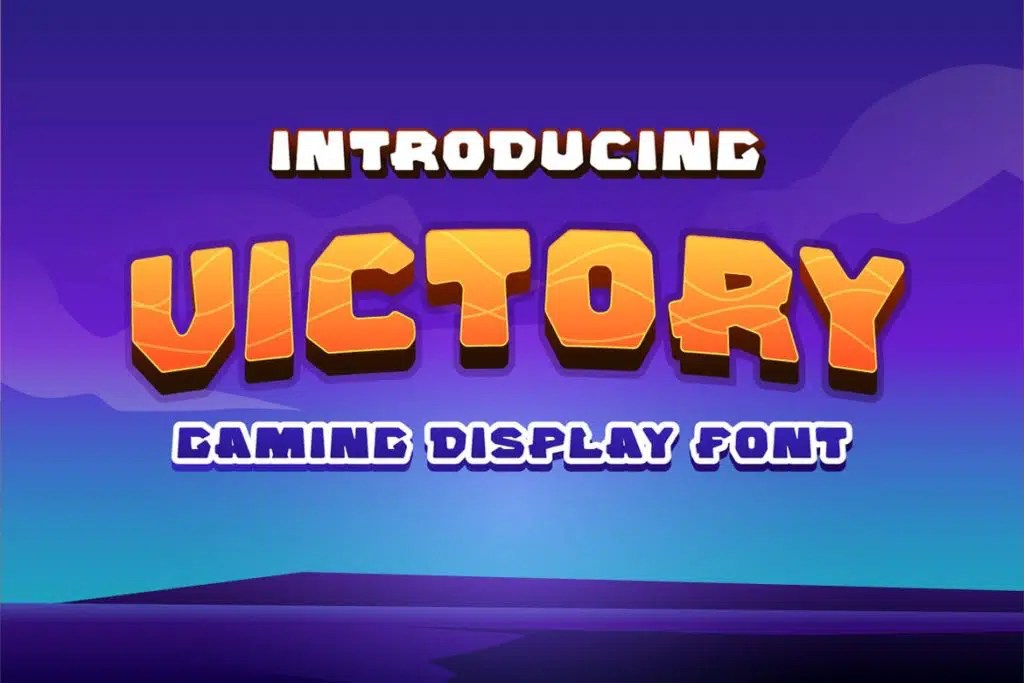
Best Font For Gaming Subtitles . Check out our best 15 fonts. But fonts can also set a tone for your video. Picking the right subtitle font is like choosing a song for a movie scene. They're clear, easy to read, and fit well in most video scenes. For gaming subtitles, verdana or tahoma are the best fonts, as they offer clear legibility even during intense action scenes. You’ll also learn how to customize and format your video captions and. If you're doing a comedy video you may want to. If you’re looking for the best subtitle font, this guide will lay out all the great options available to you. Are you looking for free subtitle fonts to enhance your videos?
But fonts can also set a tone for your video. If you’re looking for the best subtitle font, this guide will lay out all the great options available to you. For gaming subtitles, verdana or tahoma are the best fonts, as they offer clear legibility even during intense action scenes. They're clear, easy to read, and fit well in most video scenes. Picking the right subtitle font is like choosing a song for a movie scene. Are you looking for free subtitle fonts to enhance your videos? You’ll also learn how to customize and format your video captions and. If you're doing a comedy video you may want to. Check out our best 15 fonts.
12 Best Fonts for Subtitles and Closed Captions on Video
Best Font For Gaming Subtitles  Check out our best 15 fonts. If you’re looking for the best subtitle font, this guide will lay out all the great options available to you. For gaming subtitles, verdana or tahoma are the best fonts, as they offer clear legibility even during intense action scenes. You’ll also learn how to customize and format your video captions and. They're clear, easy to read, and fit well in most video scenes. Picking the right subtitle font is like choosing a song for a movie scene. Check out our best 15 fonts. But fonts can also set a tone for your video. If you're doing a comedy video you may want to. Are you looking for free subtitle fonts to enhance your videos?
10+ Best Gaming Fonts for 2021 Free and Premium Fonts Best Font For Gaming Subtitles  Picking the right subtitle font is like choosing a song for a movie scene. Are you looking for free subtitle fonts to enhance your videos? For gaming subtitles, verdana or tahoma are the best fonts, as they offer clear legibility even during intense action scenes. But fonts can also set a tone for your video. You’ll also learn how to. Best Font For Gaming Subtitles.
Best 30+ Gaming Fonts Pack Free Download 2024 Best Fonts For Best Font For Gaming Subtitles  For gaming subtitles, verdana or tahoma are the best fonts, as they offer clear legibility even during intense action scenes. If you're doing a comedy video you may want to. You’ll also learn how to customize and format your video captions and. Are you looking for free subtitle fonts to enhance your videos? But fonts can also set a tone. Best Font For Gaming Subtitles.
55+ Best Gaming Fonts The Perfect Fonts for Games & Logos Best Font For Gaming Subtitles  Check out our best 15 fonts. But fonts can also set a tone for your video. For gaming subtitles, verdana or tahoma are the best fonts, as they offer clear legibility even during intense action scenes. If you're doing a comedy video you may want to. Are you looking for free subtitle fonts to enhance your videos? Picking the right. Best Font For Gaming Subtitles.
20+ Best Gaming Fonts for Logos, Thumbnails & More 2021 Theme Junkie Best Font For Gaming Subtitles  For gaming subtitles, verdana or tahoma are the best fonts, as they offer clear legibility even during intense action scenes. But fonts can also set a tone for your video. They're clear, easy to read, and fit well in most video scenes. Are you looking for free subtitle fonts to enhance your videos? Check out our best 15 fonts. If. Best Font For Gaming Subtitles.
55+ Best Gaming Fonts The Perfect Fonts for Games & Logos Best Font For Gaming Subtitles  If you're doing a comedy video you may want to. Check out our best 15 fonts. Picking the right subtitle font is like choosing a song for a movie scene. Are you looking for free subtitle fonts to enhance your videos? You’ll also learn how to customize and format your video captions and. They're clear, easy to read, and fit. Best Font For Gaming Subtitles.
20+ Best Gaming Fonts for Logos, Thumbnails & More 2021 Theme Junkie Best Font For Gaming Subtitles  But fonts can also set a tone for your video. If you’re looking for the best subtitle font, this guide will lay out all the great options available to you. They're clear, easy to read, and fit well in most video scenes. For gaming subtitles, verdana or tahoma are the best fonts, as they offer clear legibility even during intense. Best Font For Gaming Subtitles.
10 best fonts for subtitles for videos in 2024 Best Font For Gaming Subtitles  If you're doing a comedy video you may want to. But fonts can also set a tone for your video. If you’re looking for the best subtitle font, this guide will lay out all the great options available to you. You’ll also learn how to customize and format your video captions and. They're clear, easy to read, and fit well. Best Font For Gaming Subtitles.
20+ Best Gaming Fonts for Logos, Thumbnails & More 2021 Theme Junkie Best Font For Gaming Subtitles  Picking the right subtitle font is like choosing a song for a movie scene. You’ll also learn how to customize and format your video captions and. They're clear, easy to read, and fit well in most video scenes. If you're doing a comedy video you may want to. But fonts can also set a tone for your video. Are you. Best Font For Gaming Subtitles.
10+ Best Gaming Fonts for 2021 Free and Premium Fonts Best Font For Gaming Subtitles  If you're doing a comedy video you may want to. They're clear, easy to read, and fit well in most video scenes. Check out our best 15 fonts. For gaming subtitles, verdana or tahoma are the best fonts, as they offer clear legibility even during intense action scenes. You’ll also learn how to customize and format your video captions and.. Best Font For Gaming Subtitles.